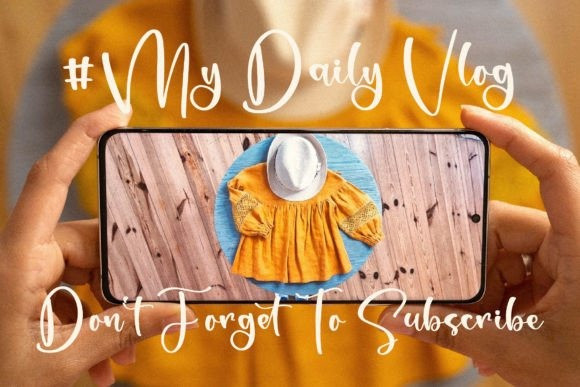
Menttary Sabttone Font
Menttary Sabttone Font is a sweet and cursive handwritten font. This gentle font will look gorgeous on a variety of design ideas. It will add a joyful and romantic touch to each of your projects!